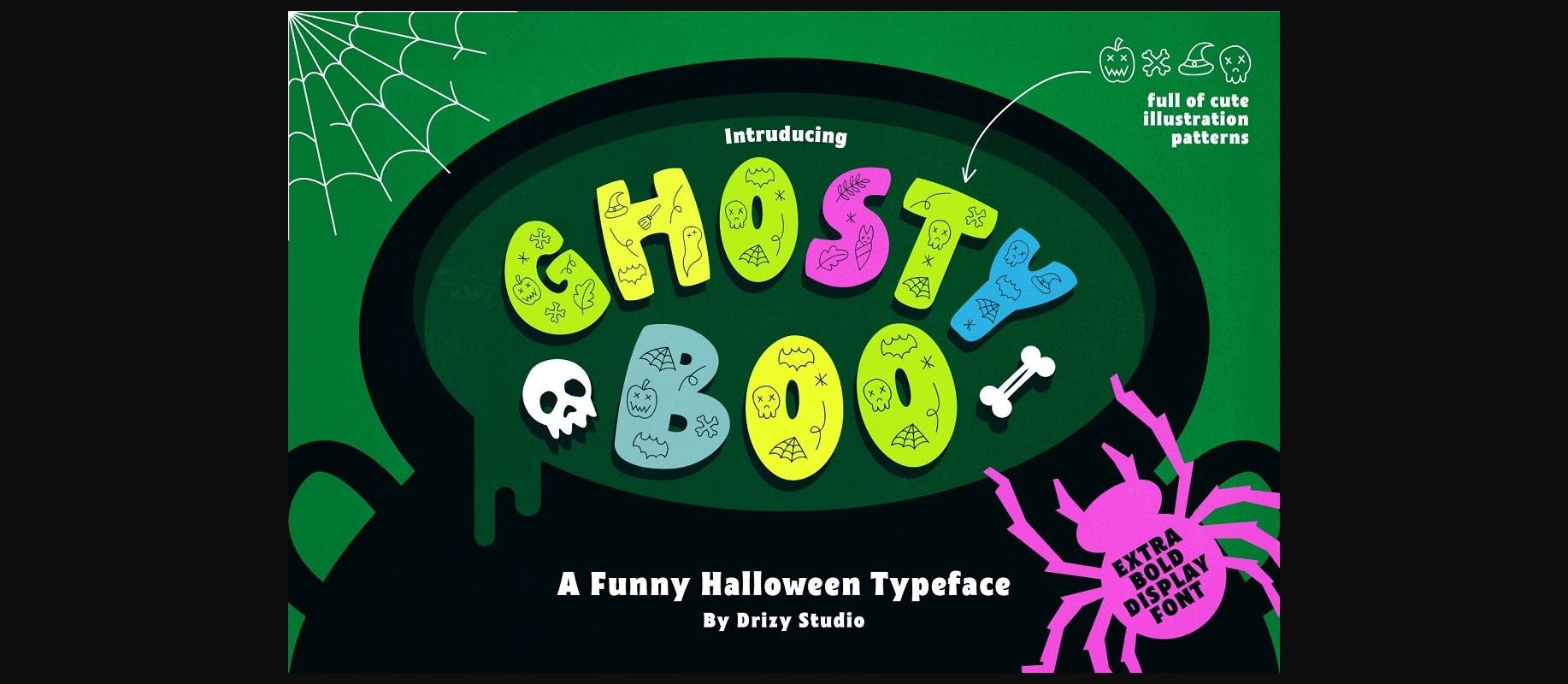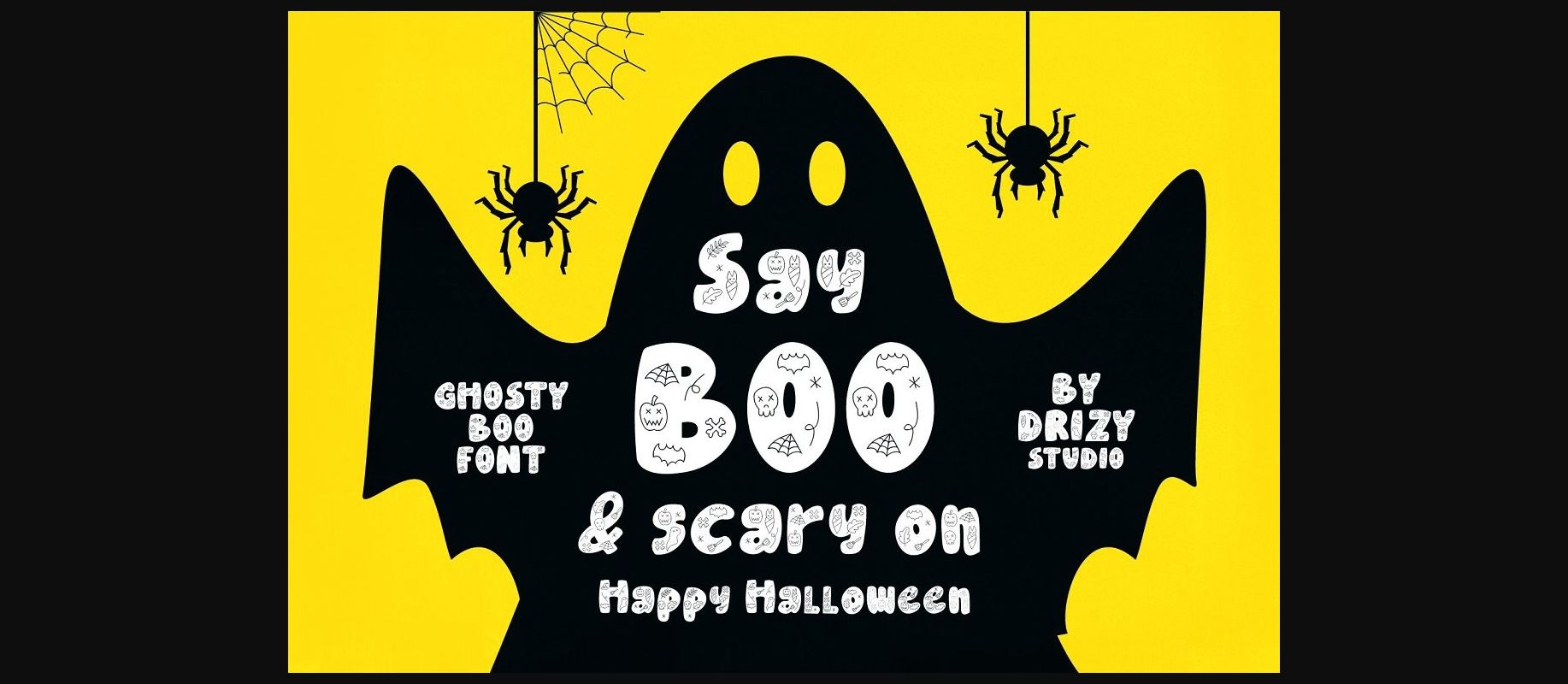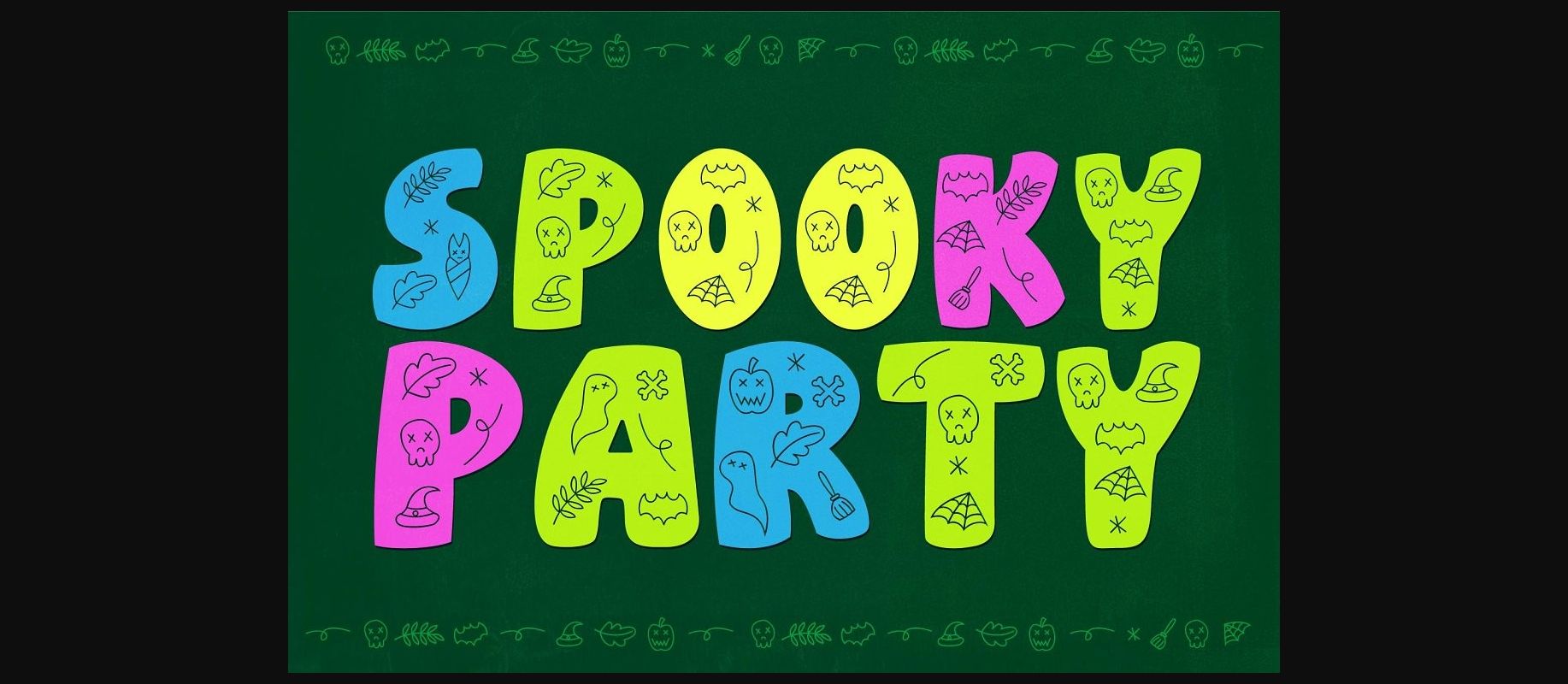
About Ghosty Boo Font
Ghosty boo is a bold decorative font adapted from kids’ doodles. The lovely spooky characters of this typeface will help you create a nice Halloween mood in every crafty idea!